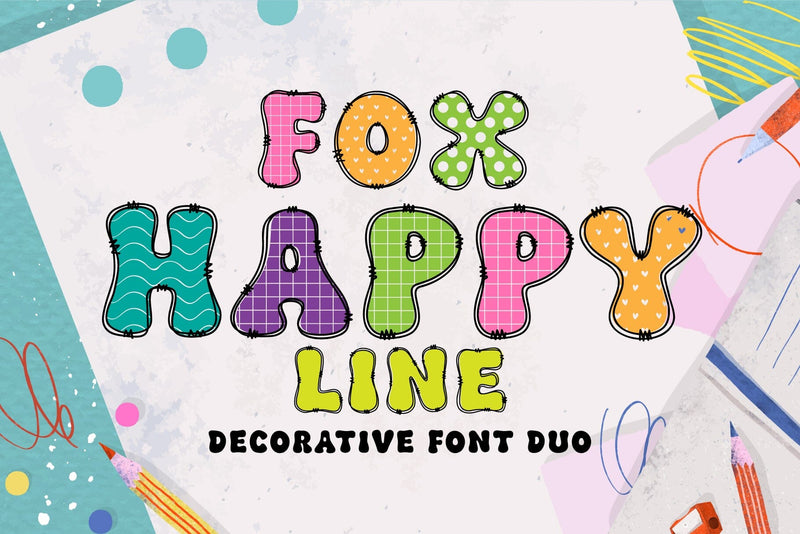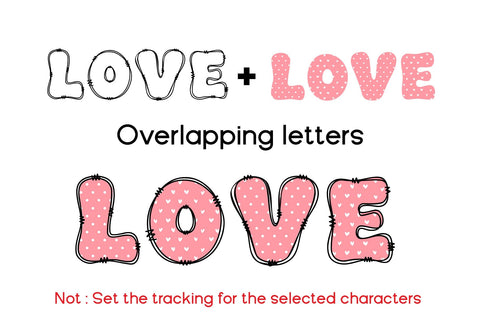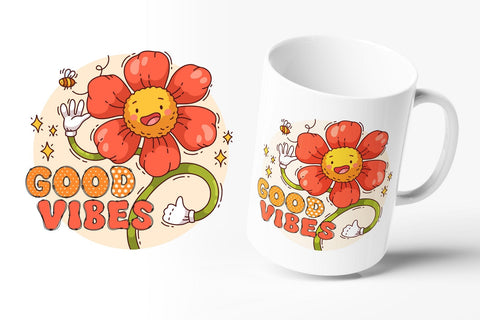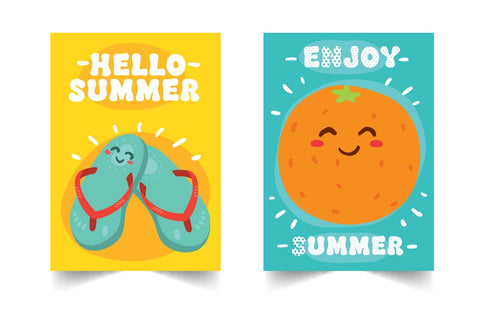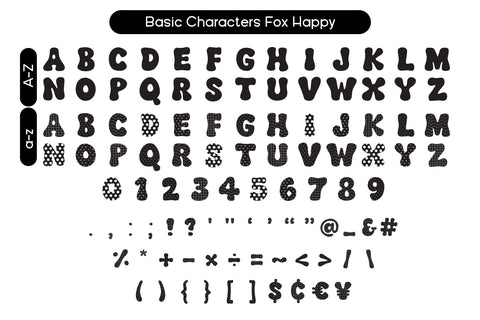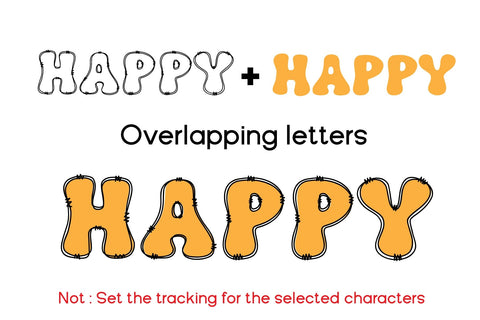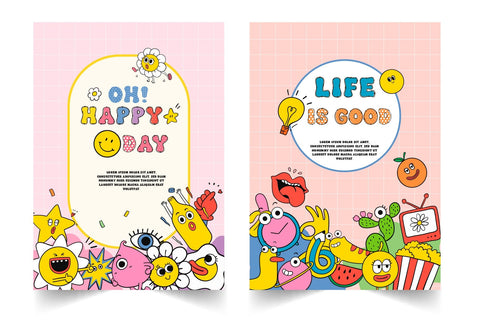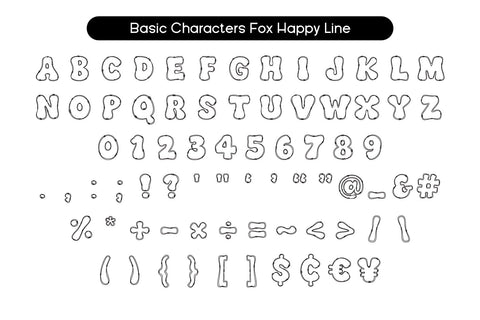
Fox Happy & Fox Happy Line Duo Font
Fox Happy and Fox Happy Line are two versatile and stylish fonts that have been designed to complement each other. The duo font package consists of a display font, Fox Happy, and a decorative font, Fox Happy Line. Together, these two fonts can be used to create a wide range of design projects, including logos, posters, flyers, social media graphics, and more.